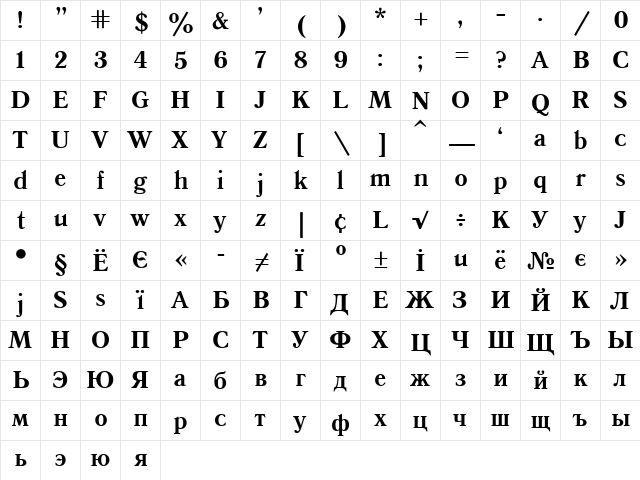
QuantAntiqua Bold Font Preview
QuantAntiqua Bold
Design Context for QuantAntiqua Typeface
QuantAntiqua offers clean, dependable letterforms without strong stylistic allegiance, making it a practical choice for designers who need flexibility. Its bold stroke weight gives it real presence on the page.